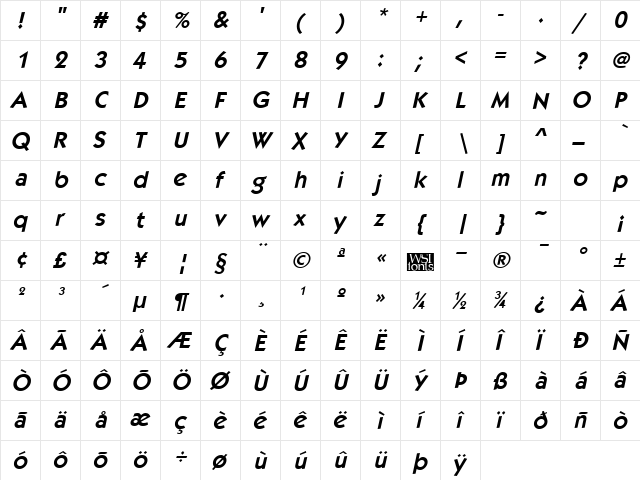
Kabob BoldItalic
Design Context for Kabob Typeface
Kabob is a composed and adaptable typeface that performs quietly and consistently across a wide range of design contexts. Its italic angle brings a sense of urgency and motion to the letterforms. Its bold stroke weight gives it real presence on the page.